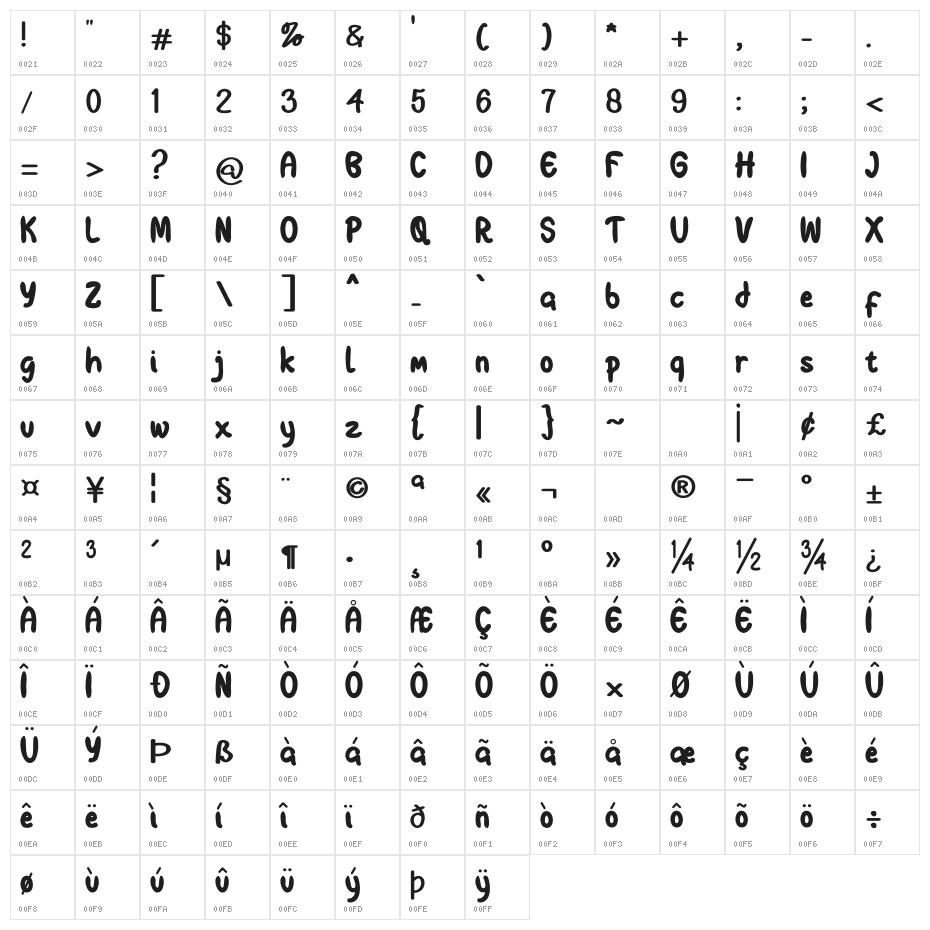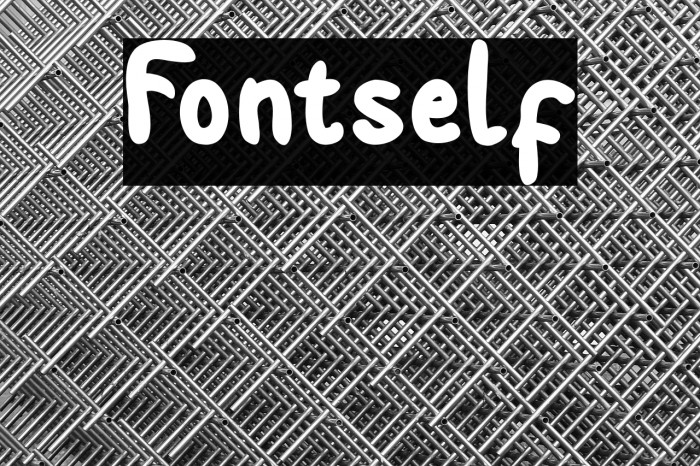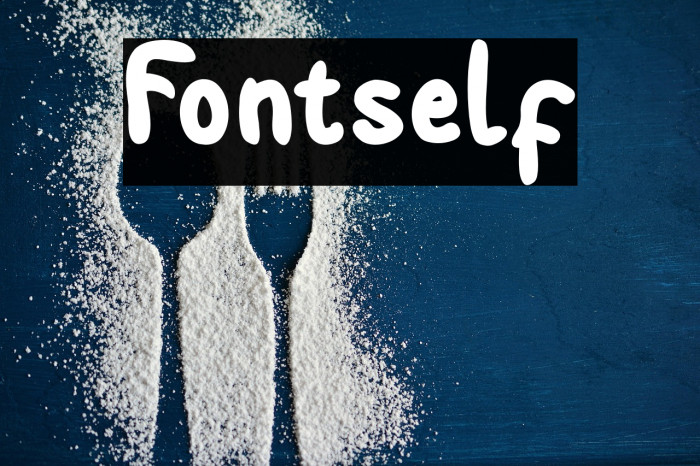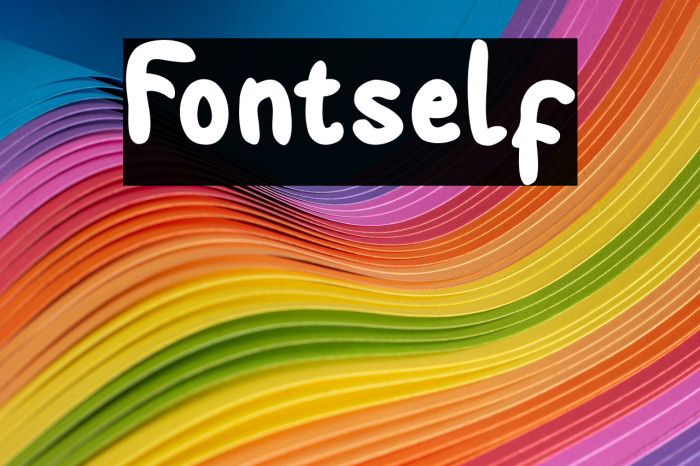
Fontself Font
Fontself Description
This playful and bold font features rounded, thick strokes that give it a friendly and approachable appearance. The characters are slightly irregular, adding a whimsical touch that makes it stand out. The uppercase and lowercase letters maintain a consistent style, with a smooth flow and rounded edges. The numerals are equally bold and rounded, ensuring readability and consistency across all characters. Special characters are designed with the same playful style, making this font suitable for creative and informal projects.
| Overall Style | Playful |
| Proposed Projects | Ideal for children's books, playful branding, greeting cards, and informal event invitations. |